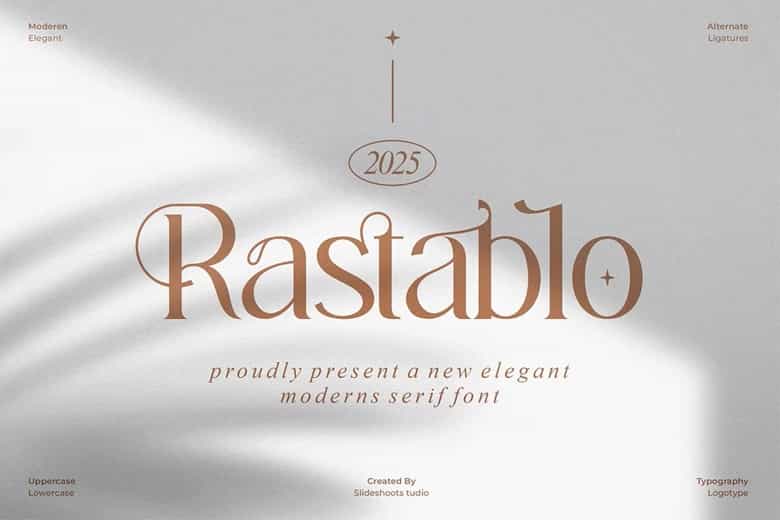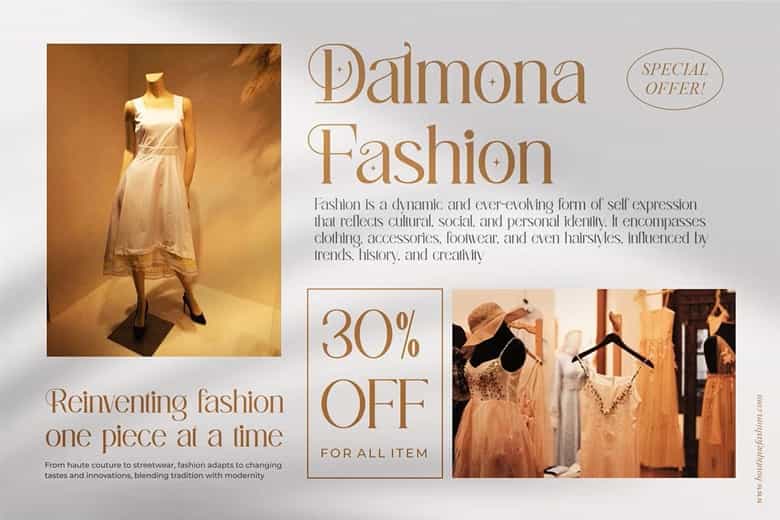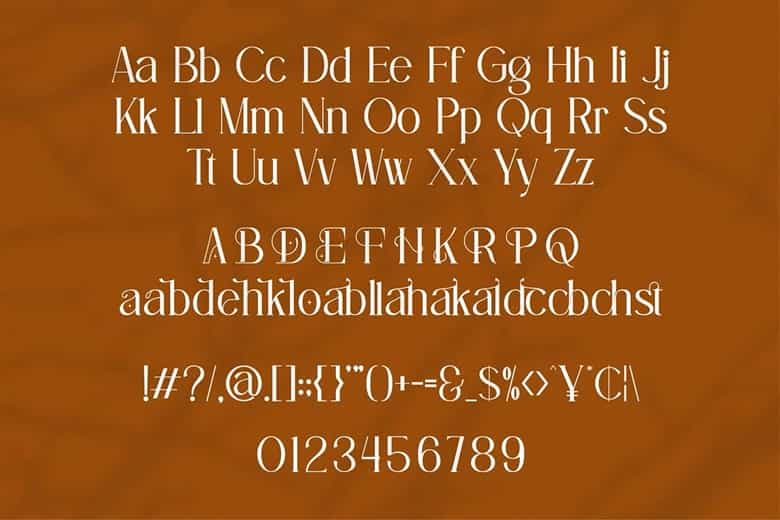
Rastablo – a new elegant modern serif typeface. There is a wood theme character, unique. It is perfect combination with designs for an invitation card, company logo, movie titles, movie names, business card, book titles, brand names and so on.